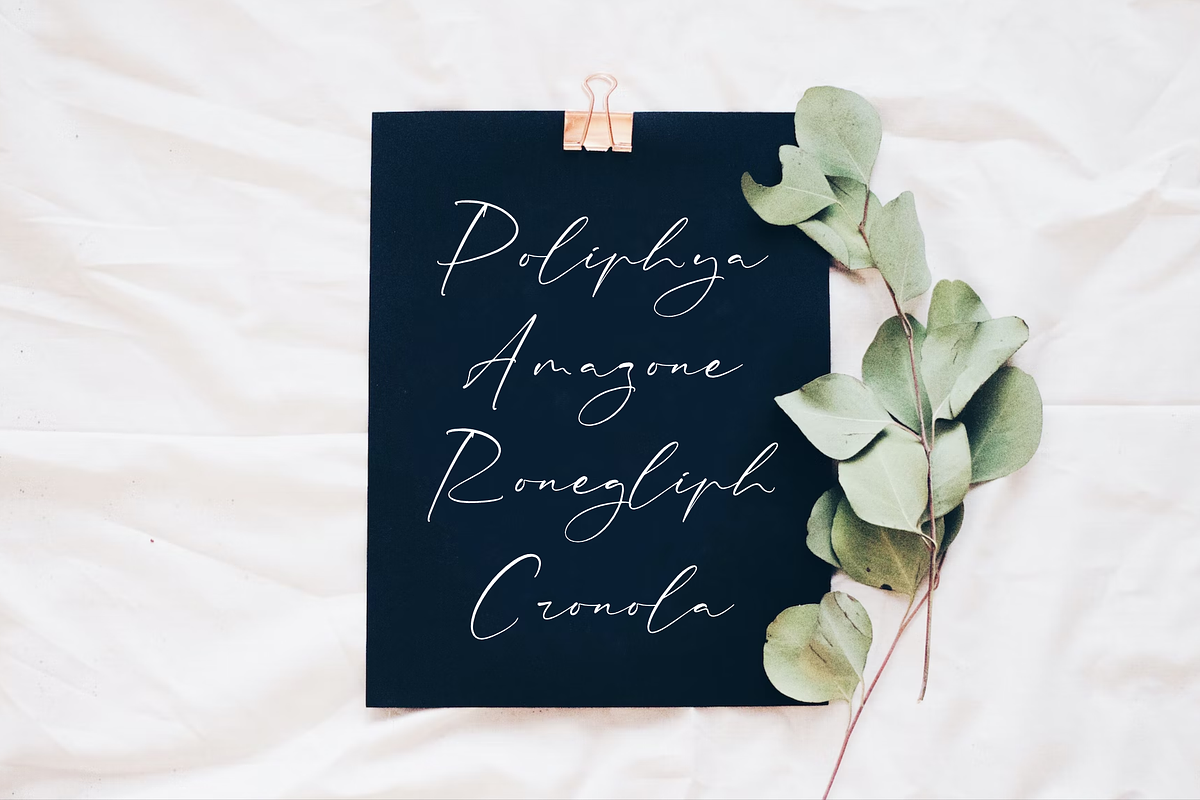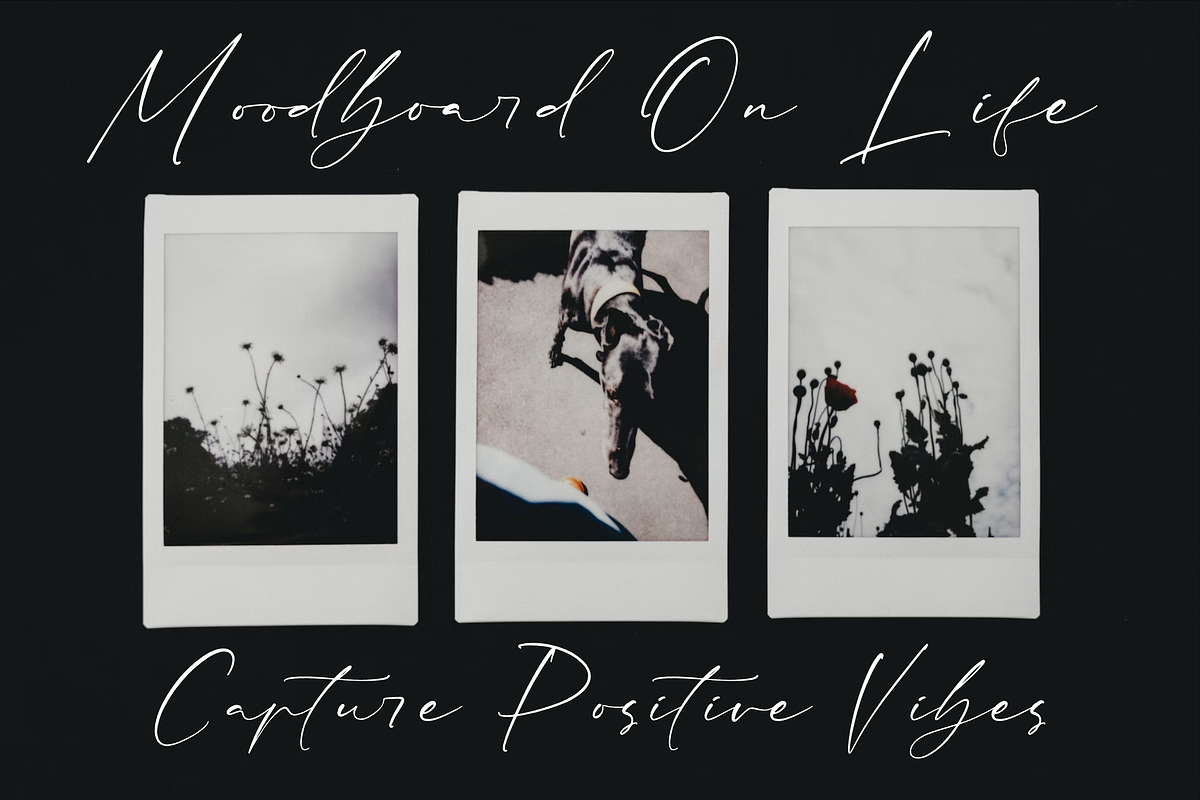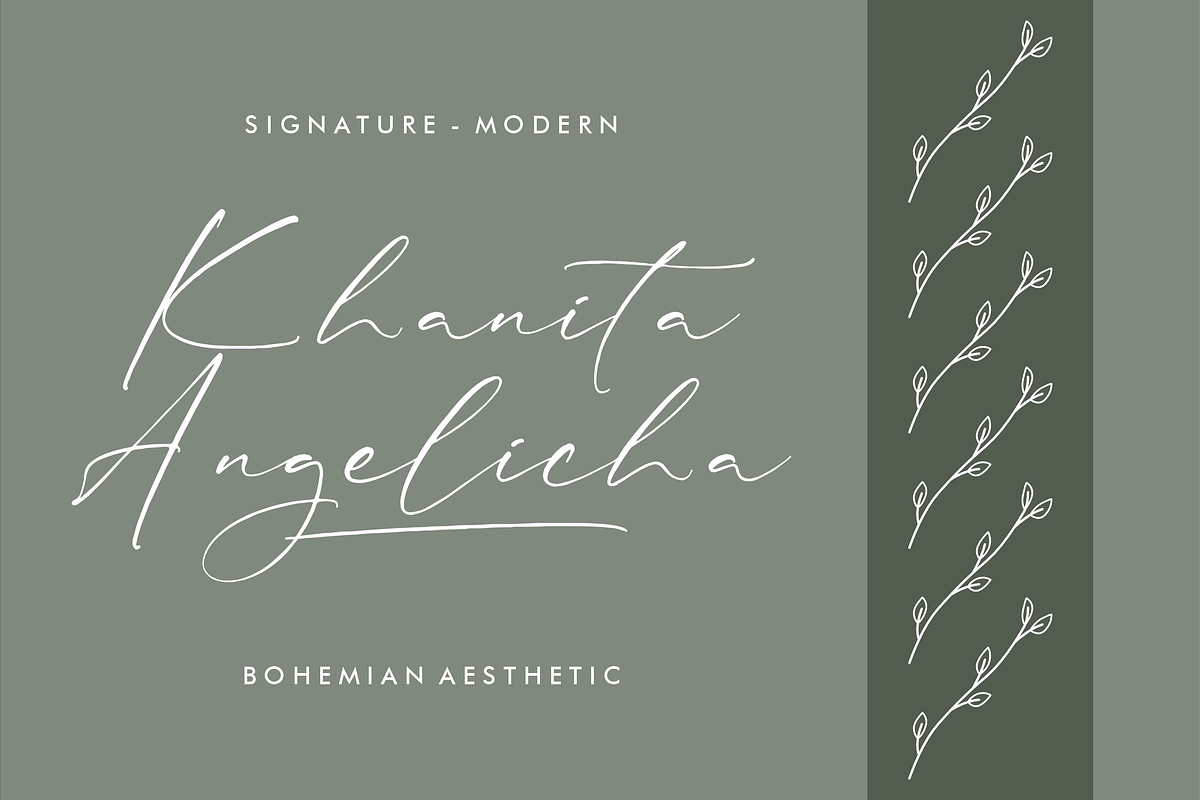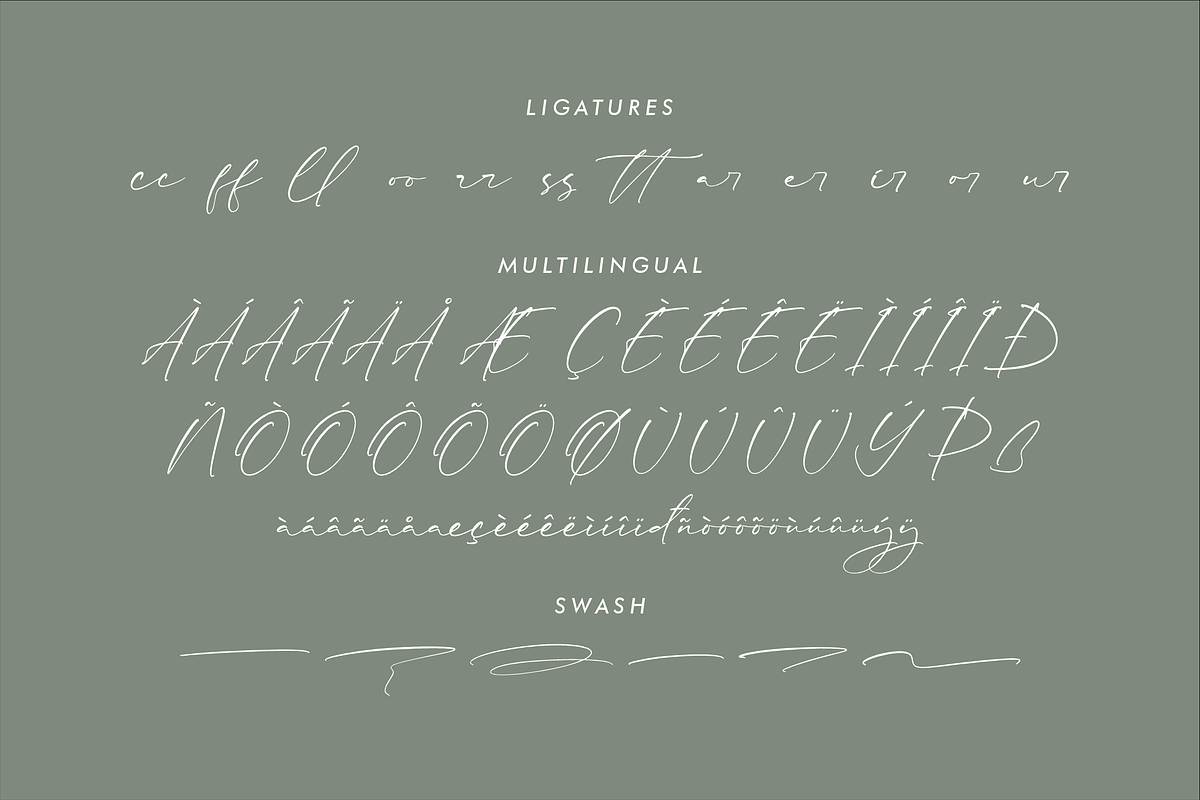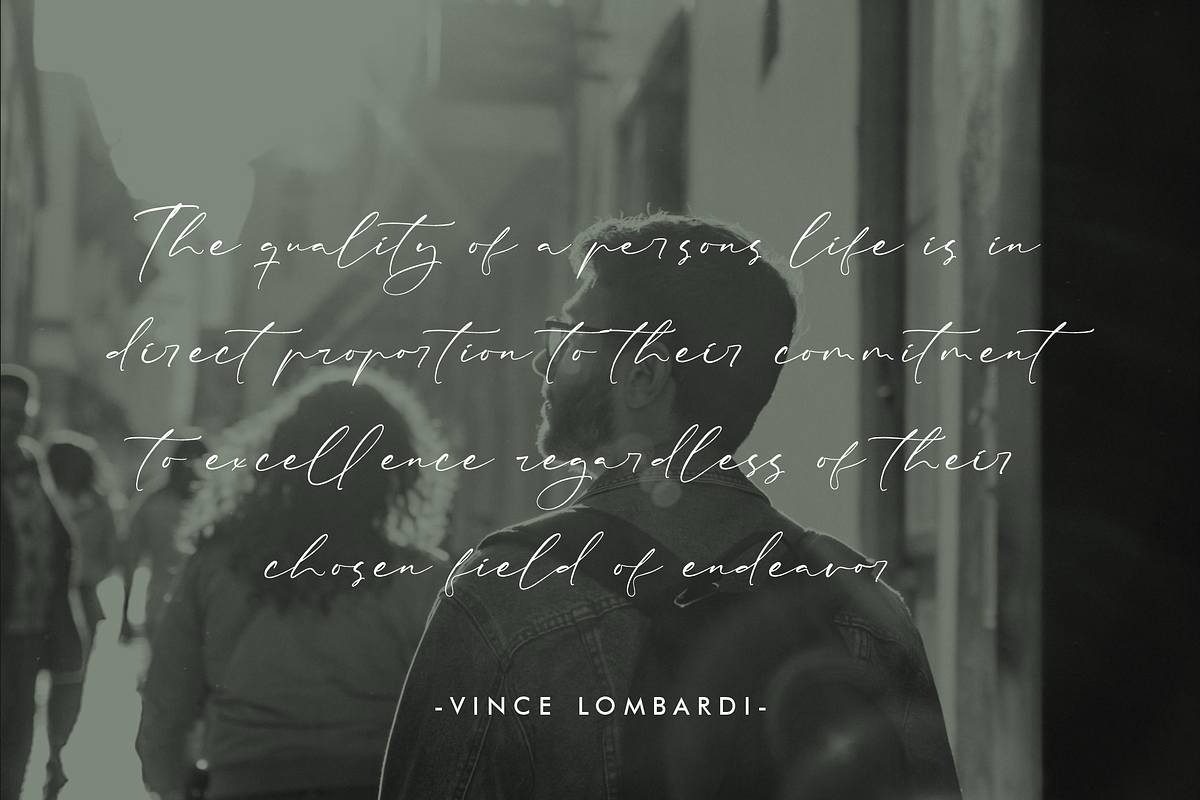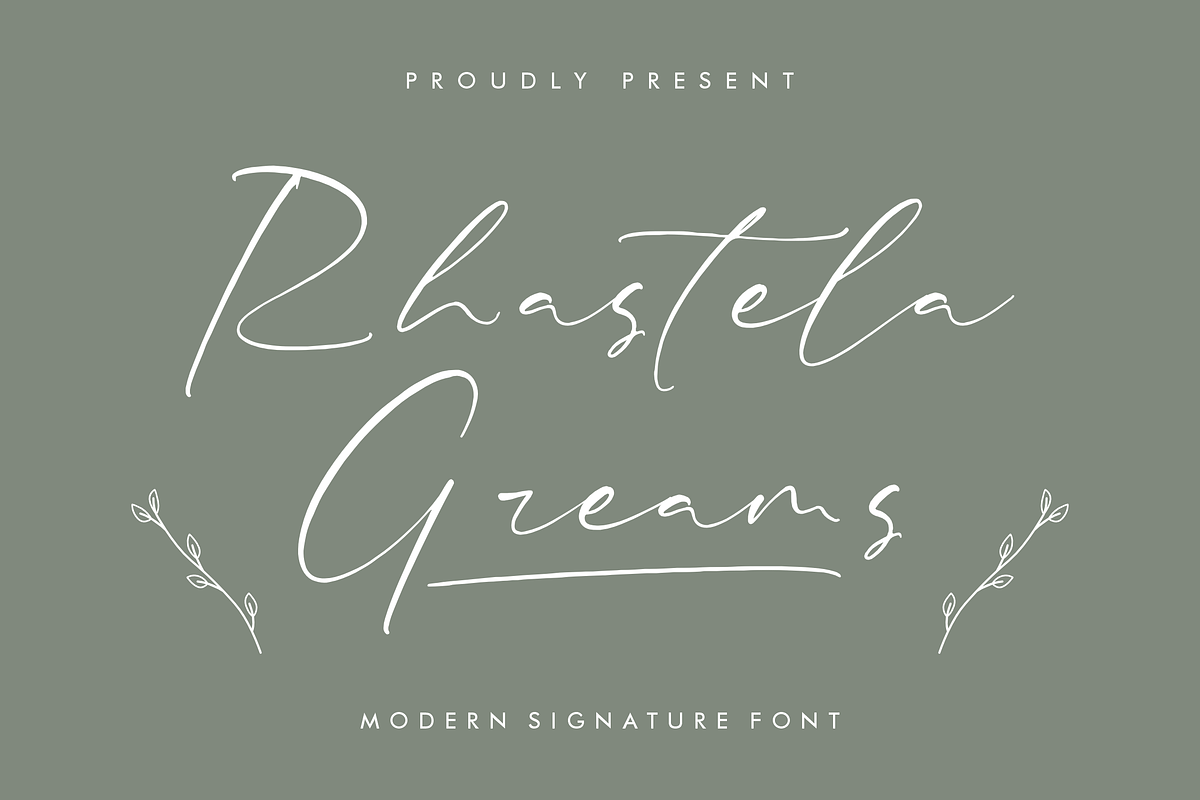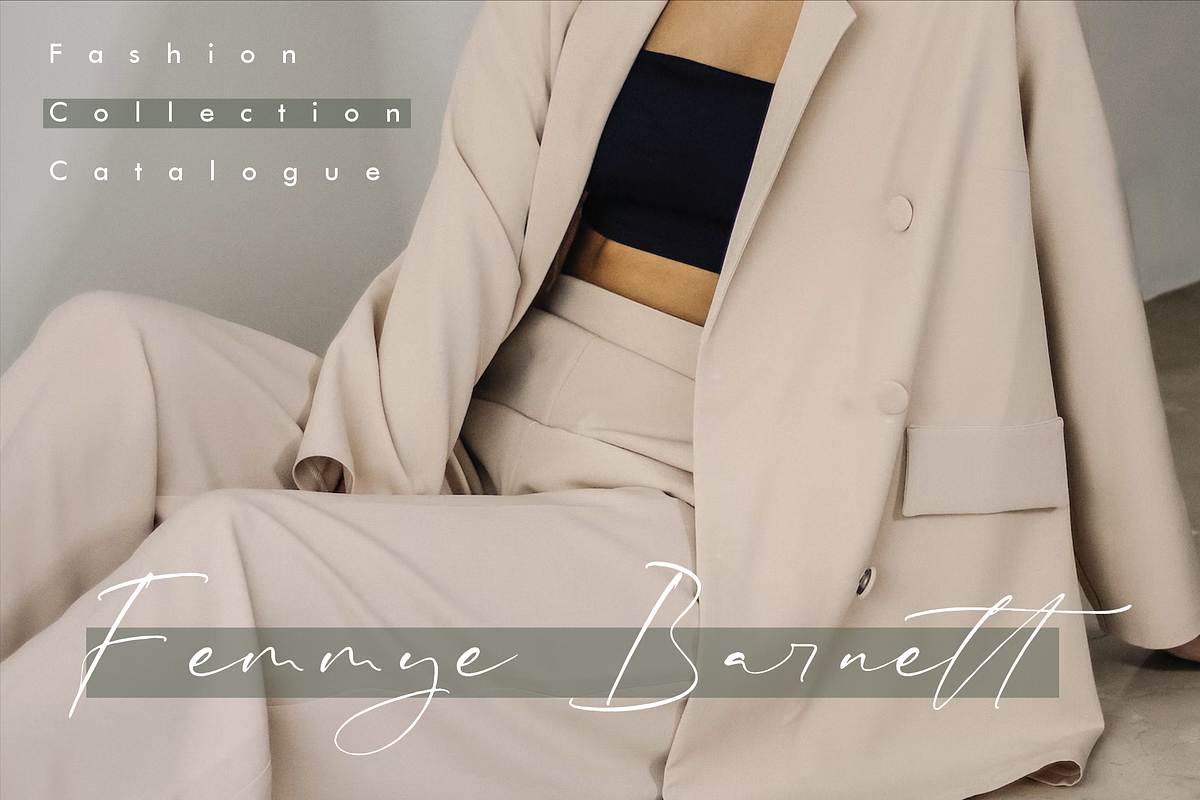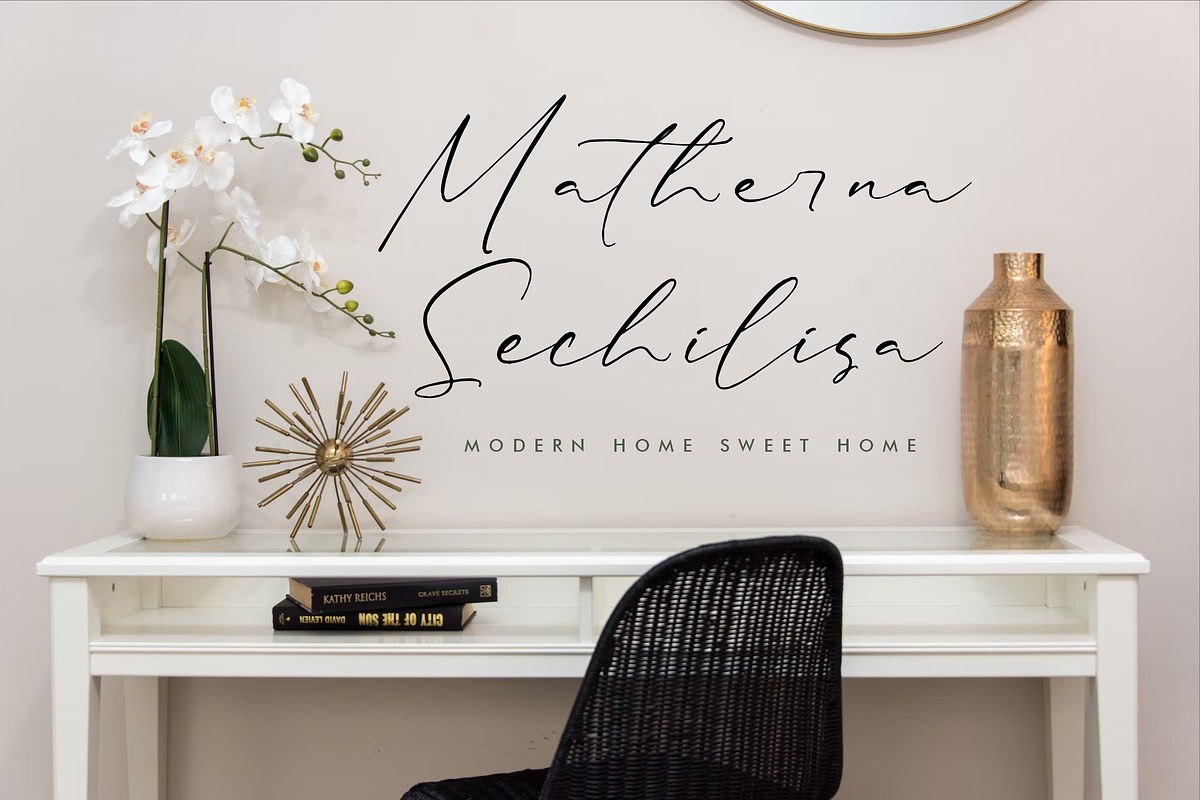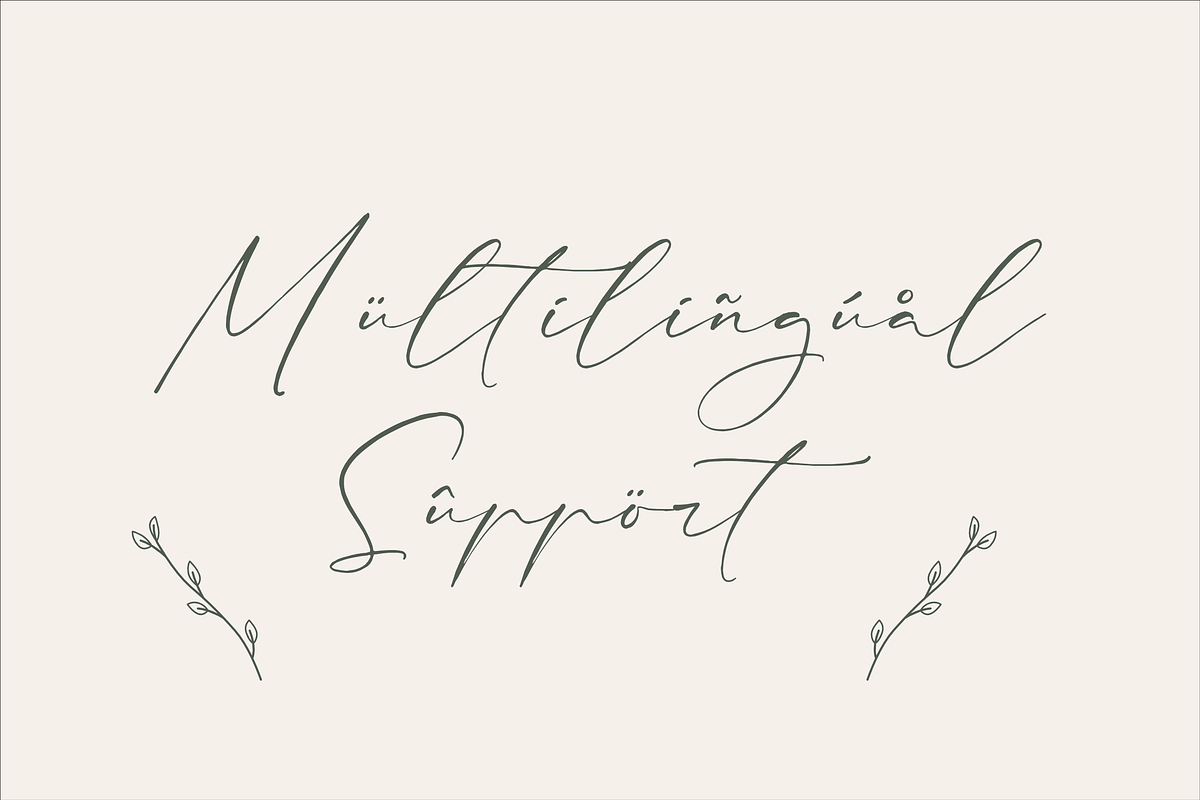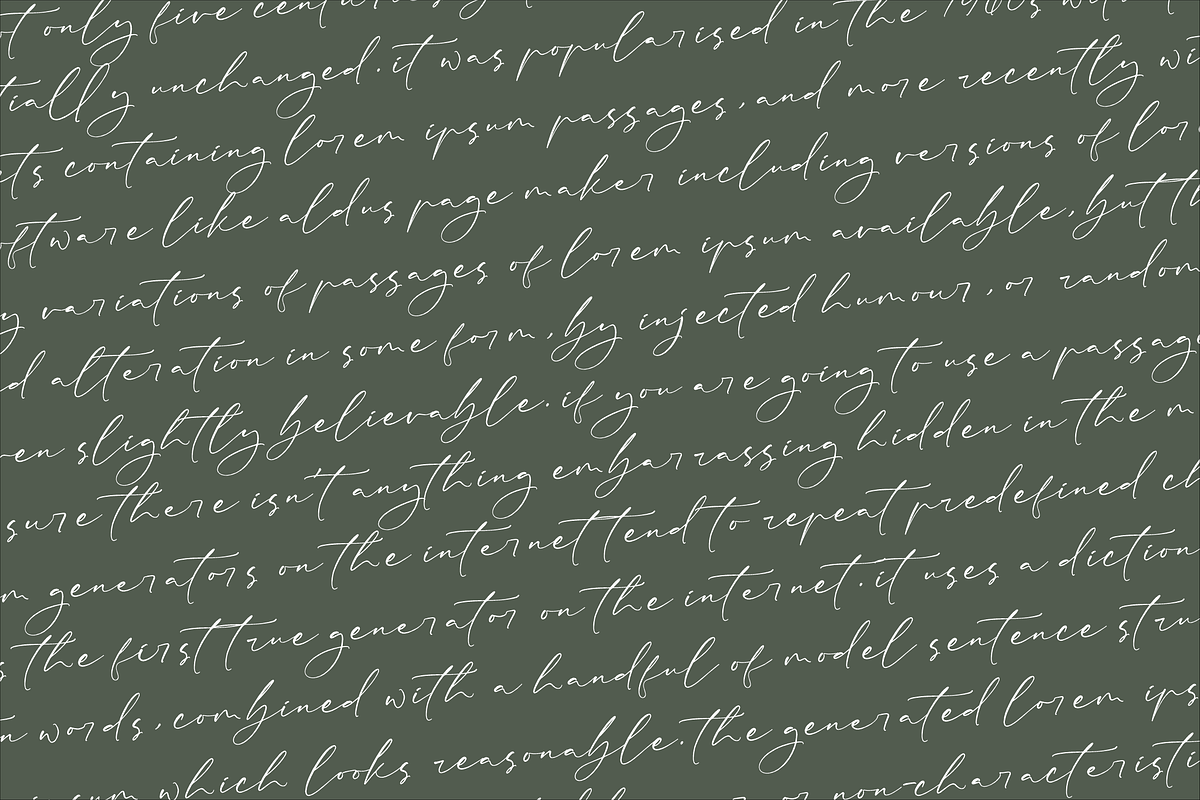
Rhastela Greams Modern Signature
Proudly present Rhastela Greams - Modern Signature Font , created by Storytype, A luxury script that has own unique style & modern look. This typeface is perfect for an elegant & luxury logo, book or movie title design, fashion brand, magazine, clothes, lettering, quotes, and so much more.